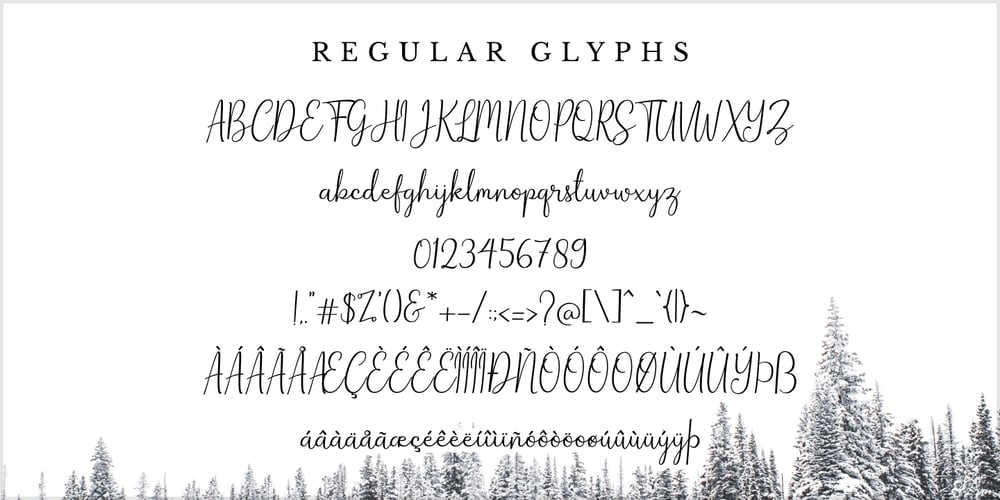
Winterbean Font Family was designed by Faja Abdul Fatah and published by Sibelumpagi. Winterbean contains 1 styles and family package options. Winterbean is a beautiful modern calligraphy font. It comes with some alternates that make the font look beautiful and elegant. It’s perfect for logos, product packaging, wedding invitations, branding, headlines, signage, labels, signature, book covers, posters, quotes and more. And this font has given PUA Unicode so that all the alternate characters can easily be accessed. If you don’t have a program that supports OpenType features such as Adobe Illustrator and CorelDraw X Versions, you can access all the alternate glyphs using Font Book (Mac) or Character Map Windows). Thanks, and enjoy the font.